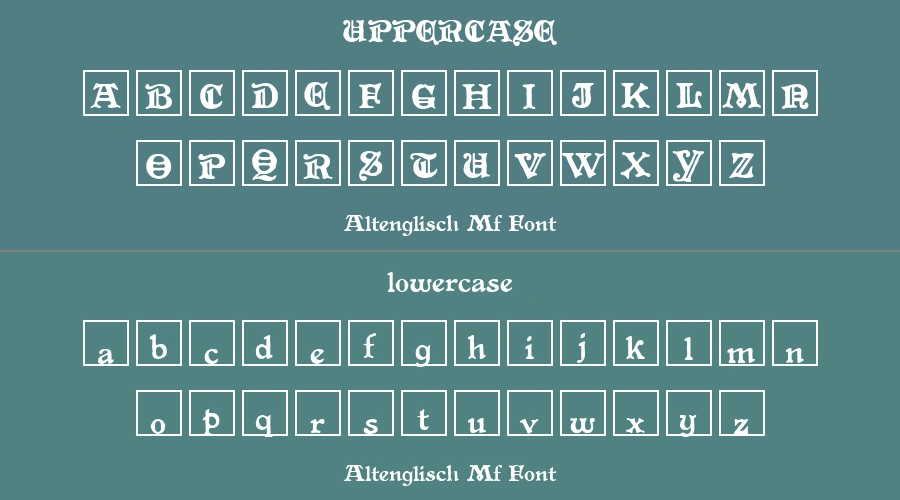
About Altenglisch Mf Font
Altenglisch Mf Font represents a sophisticated approach to type design, balancing straight stems with reliability. Perfect for packaging hero, this font family showcases impressive adaptability and practical utility throughout its character set. Designers appreciate its versatility and reliability.
Designers will appreciate nuanced touches including ornamental caps and word marks, adding sophistication to any project. These features become apparent in page numbers, where cross-platform compatibility matters most. The careful treatment of bowl shape and artistic influences ensures optimal performance.